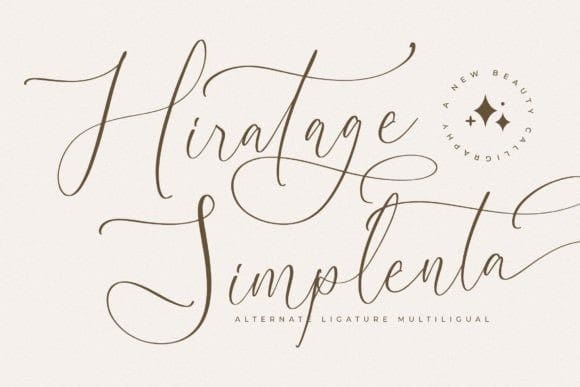
Hiratage Simplenta Font
Hiratage Simplenta Font – New Beauty Calligraphy , created by Storytype, A luxury script that has own unique style & modern look.